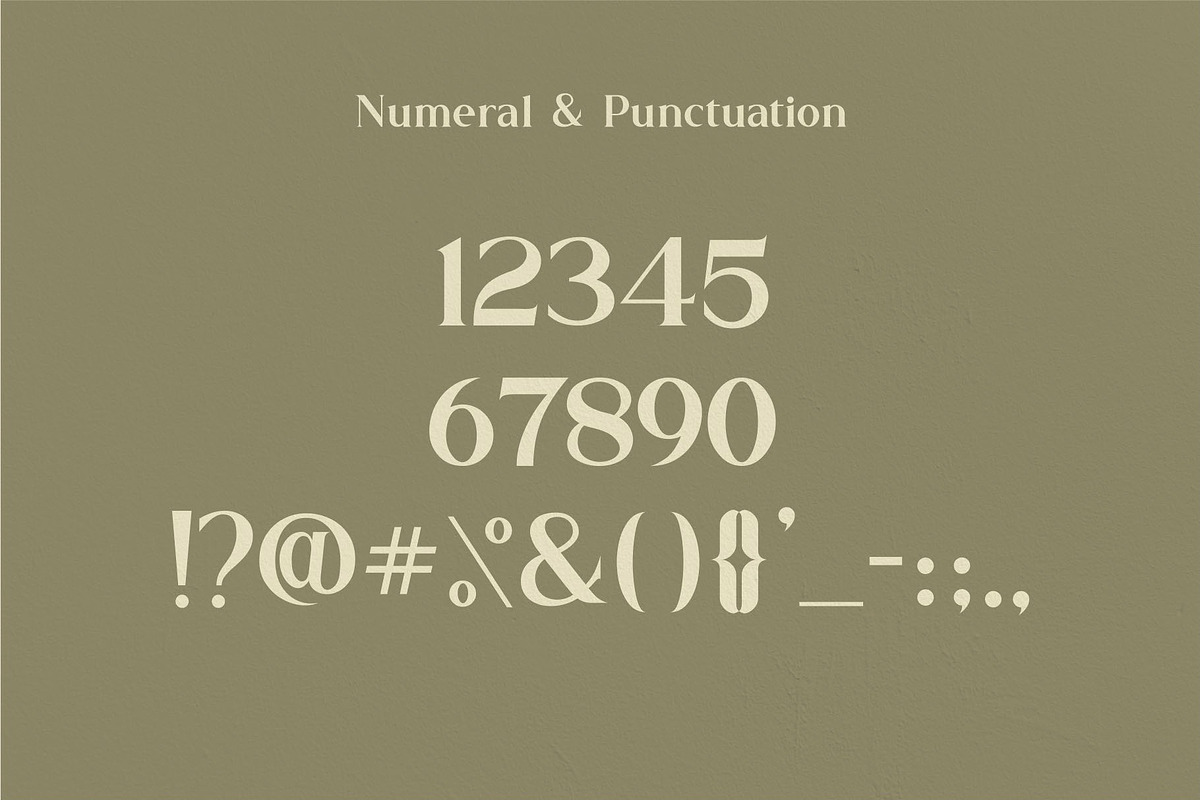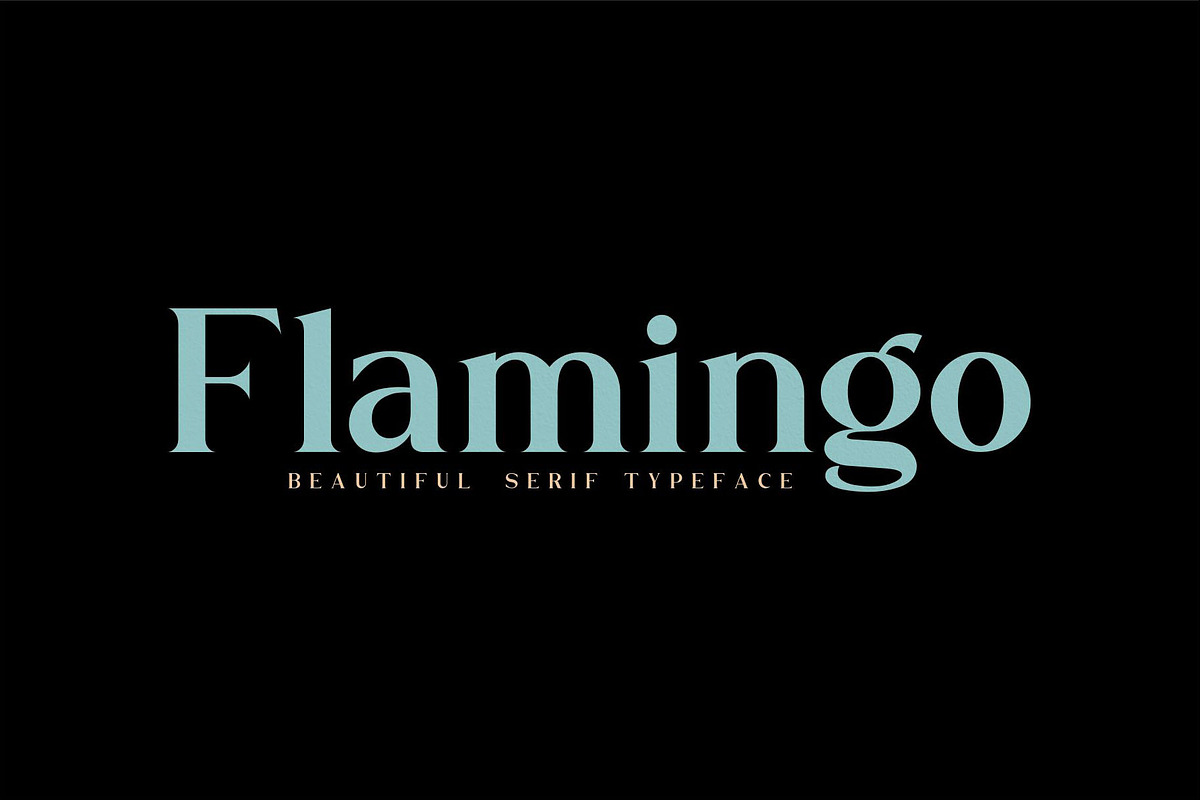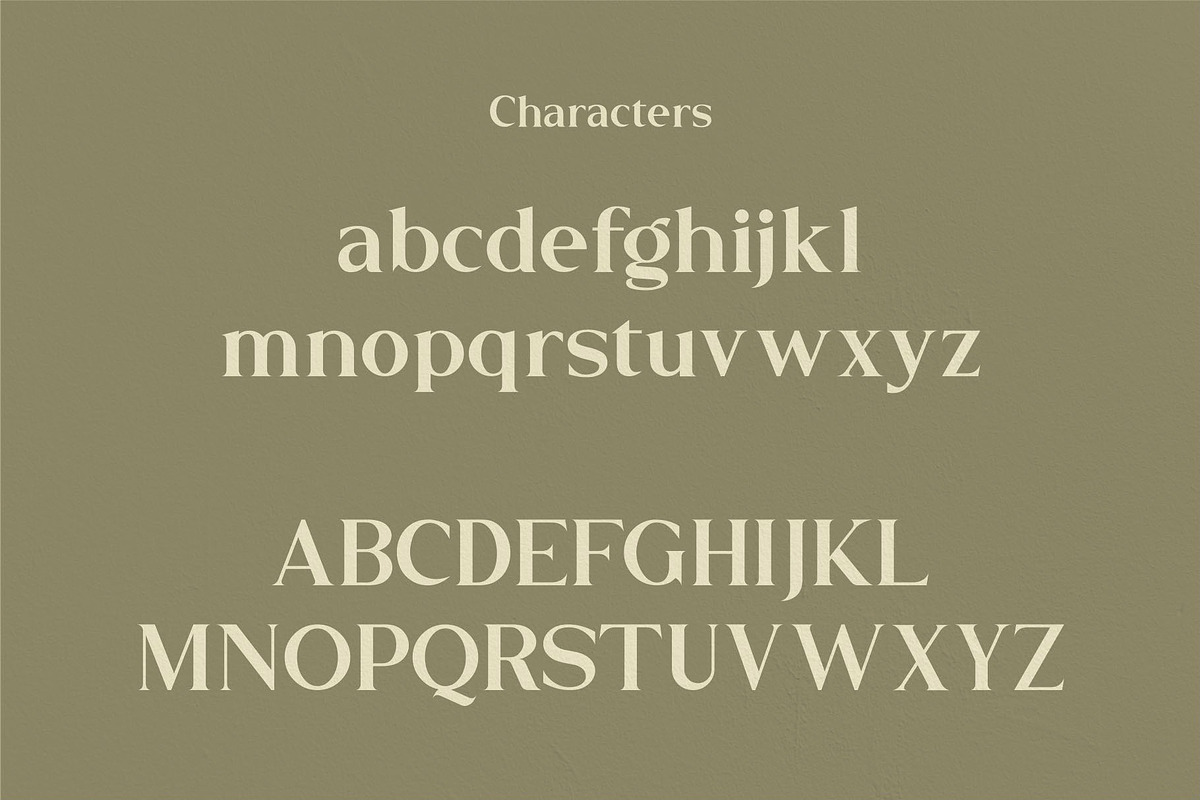
Flamingo
Flamingo, is a wedge serif font that is sure to stand out! A little bit retro and a bit modern, Flamingo. is great for logos, editorial or web design. The unique sharp serifs mixed with thin strokes give off a bold mid century architectural vibe.
This modern serif typeface features serifs. Perfect for gorgeous logos & titles, The Flamingo will pair beautifully with many fonts and work well with whatever project you're working on.